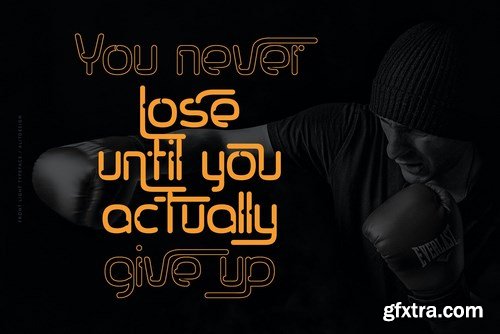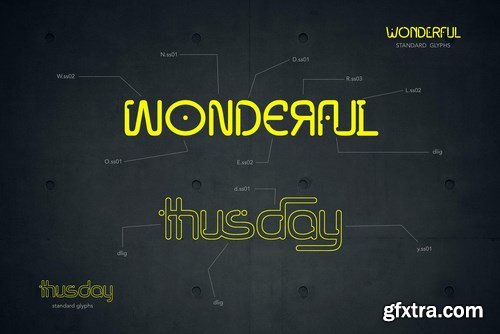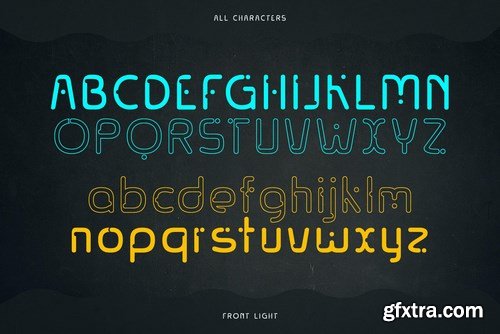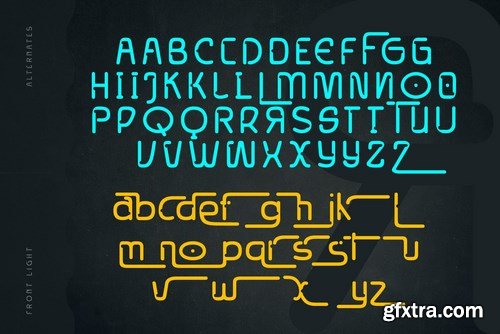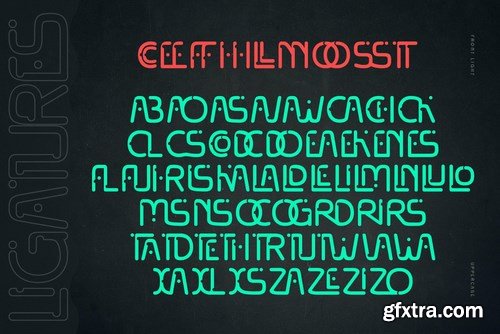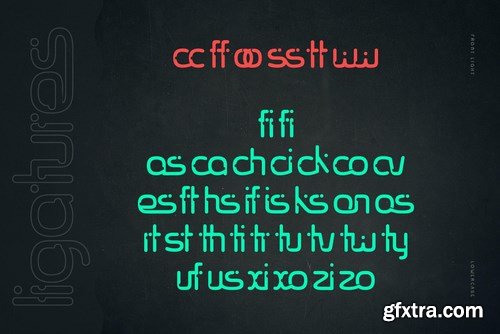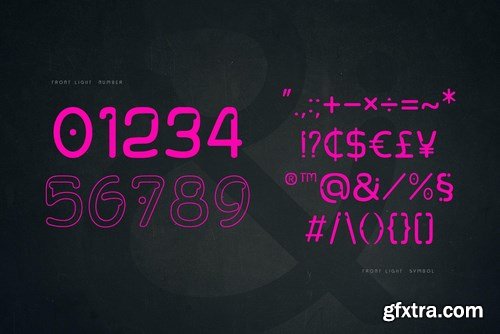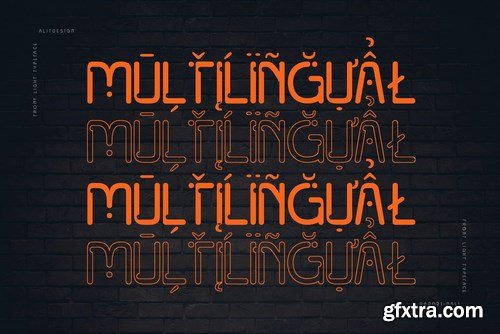
The front light typeface is inspired by the glamorous and cool nightlife in big cities. Designed with a modern digital concept, this font looks different and cool to use for making neon lettering designs. Elegant serif like “Front Light Typeface” are very easy to apply to any design, especially those with an glam and sporty concept, apart from that this font is very easy to use in both design and non-design programs because all alternates and glyphs are supported by Unicode (PUA).